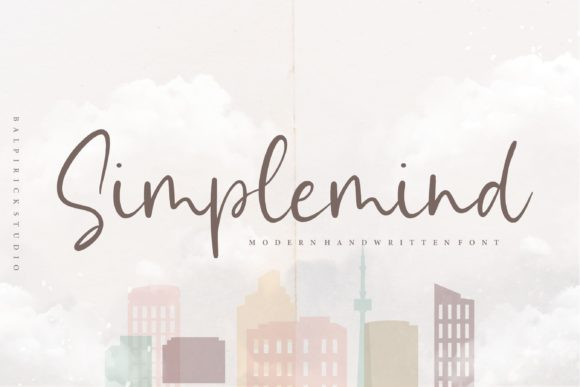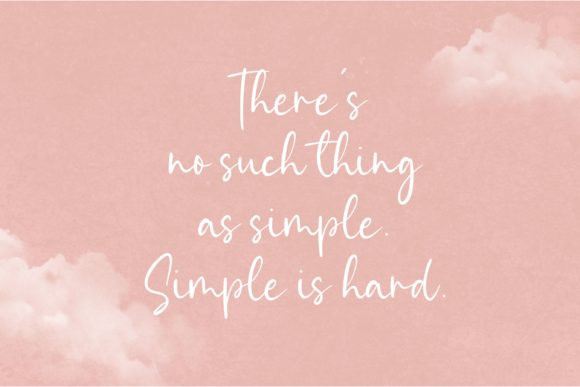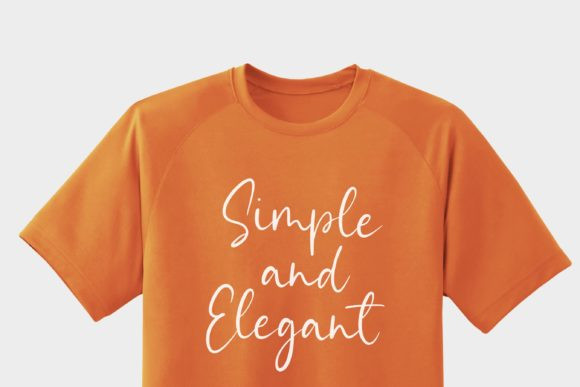
Simplemind Font
Simplemind feels equally charming and elegant. This stunning handwritten font is a stylish homage to classic calligraphy. It features a varying baseline, smooth lines, gorgeous glyphs and stunning alternates.
It will elevate a wide range of design projects to the highest level, be it branding, headings, wedding designs, invitations, signatures, logos, labels, and much more!